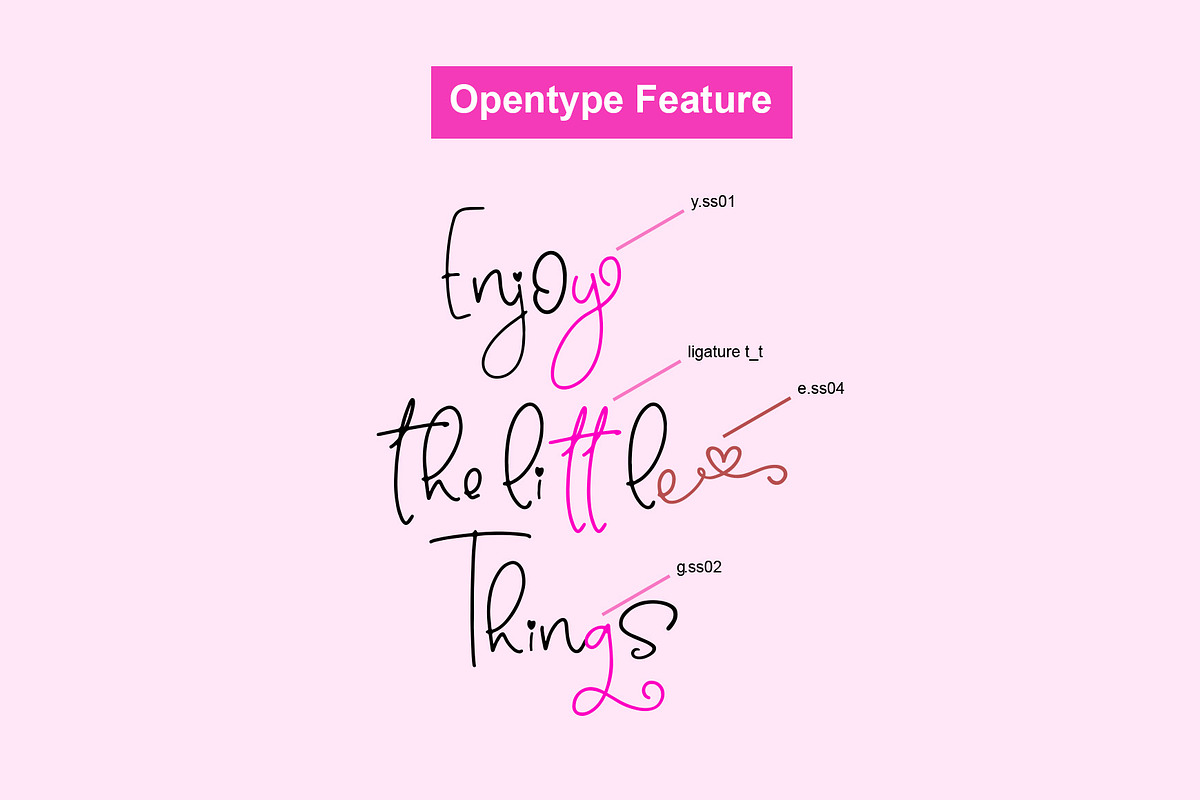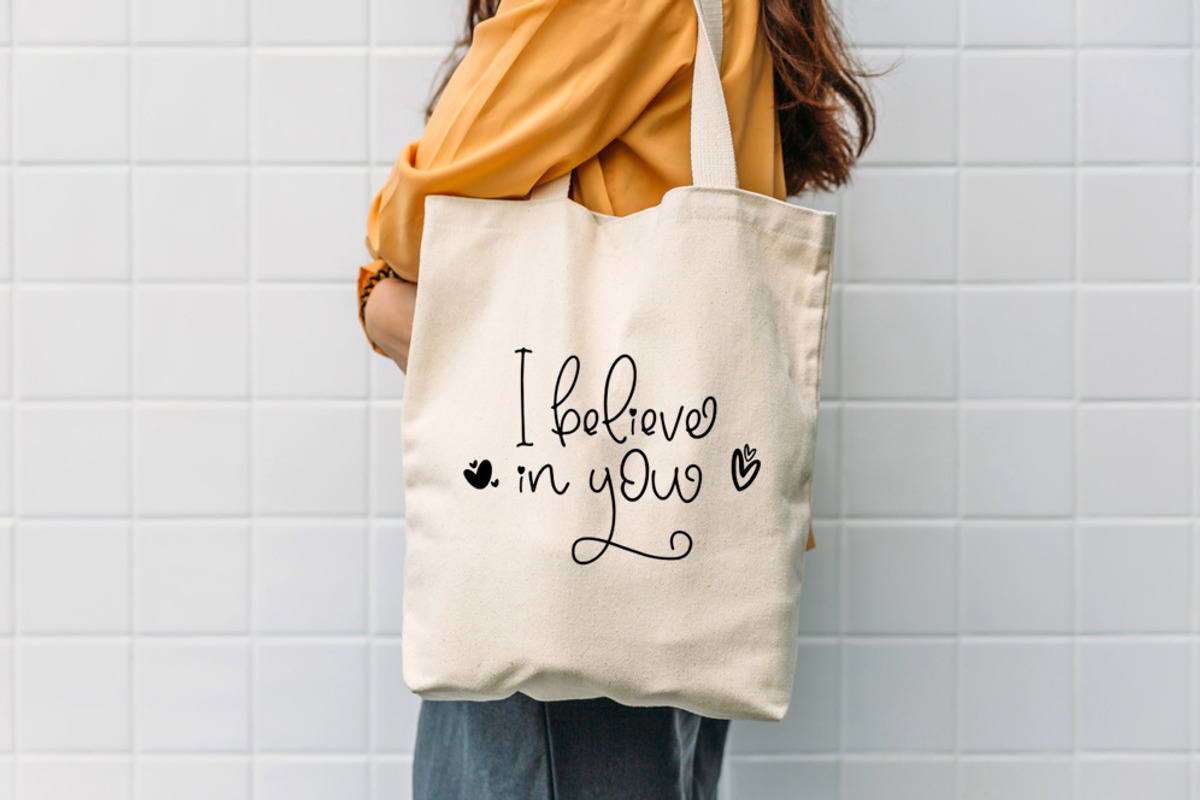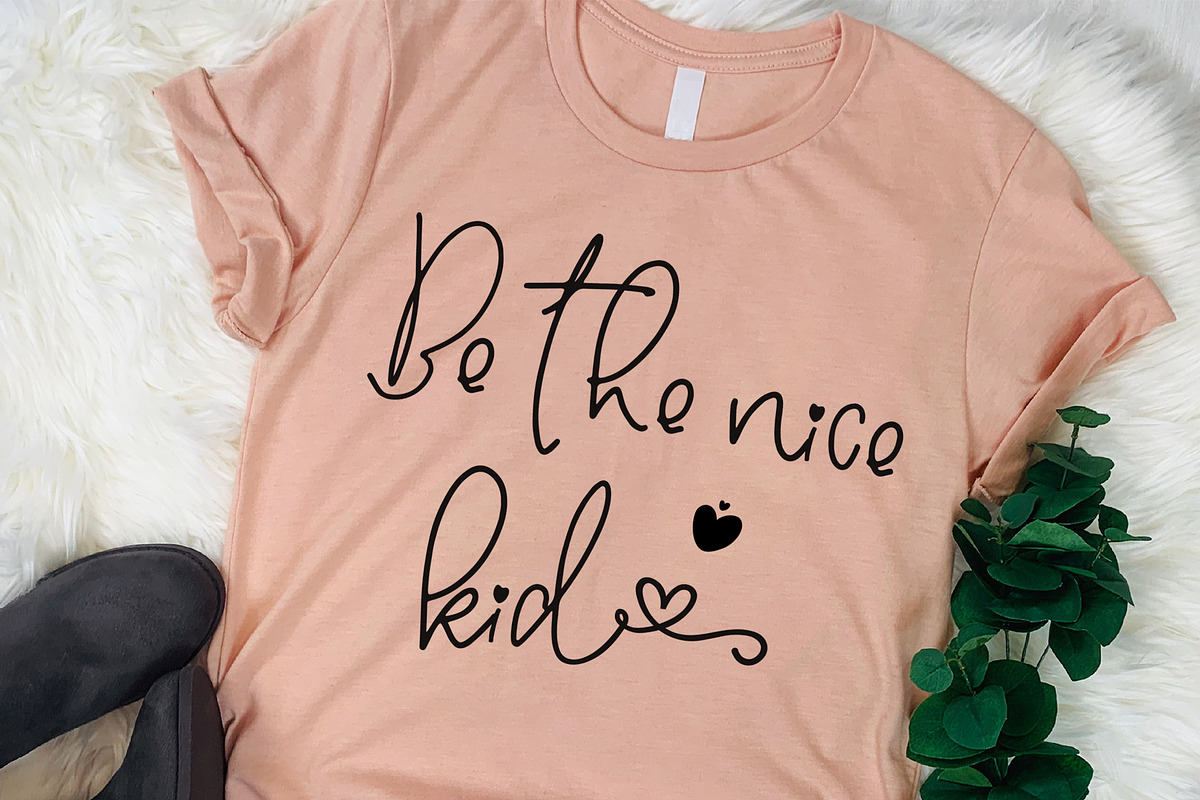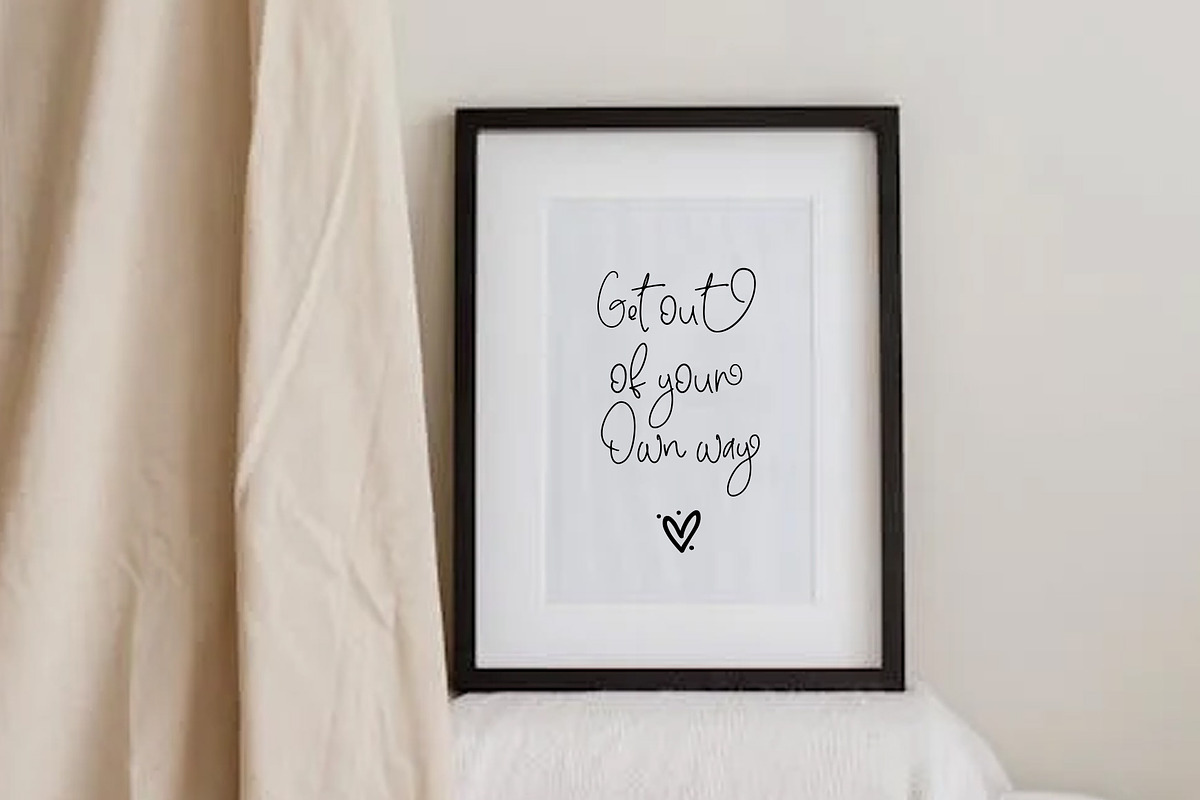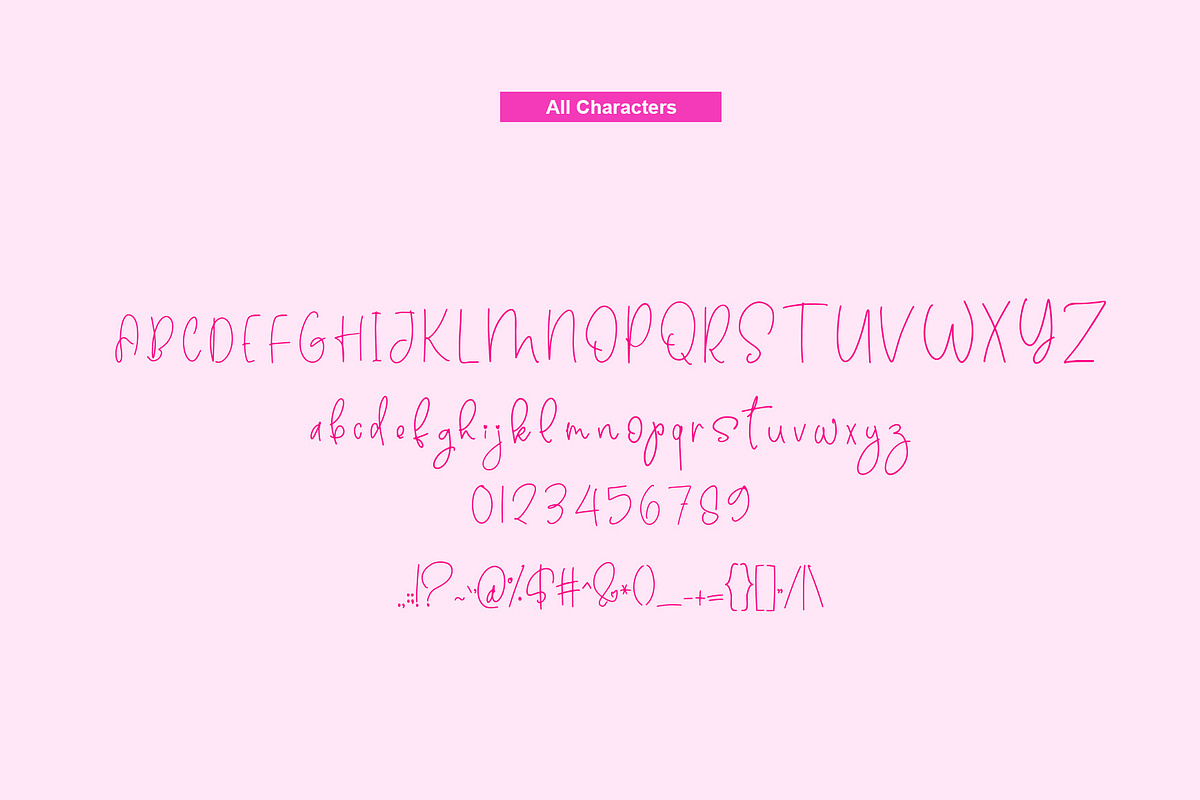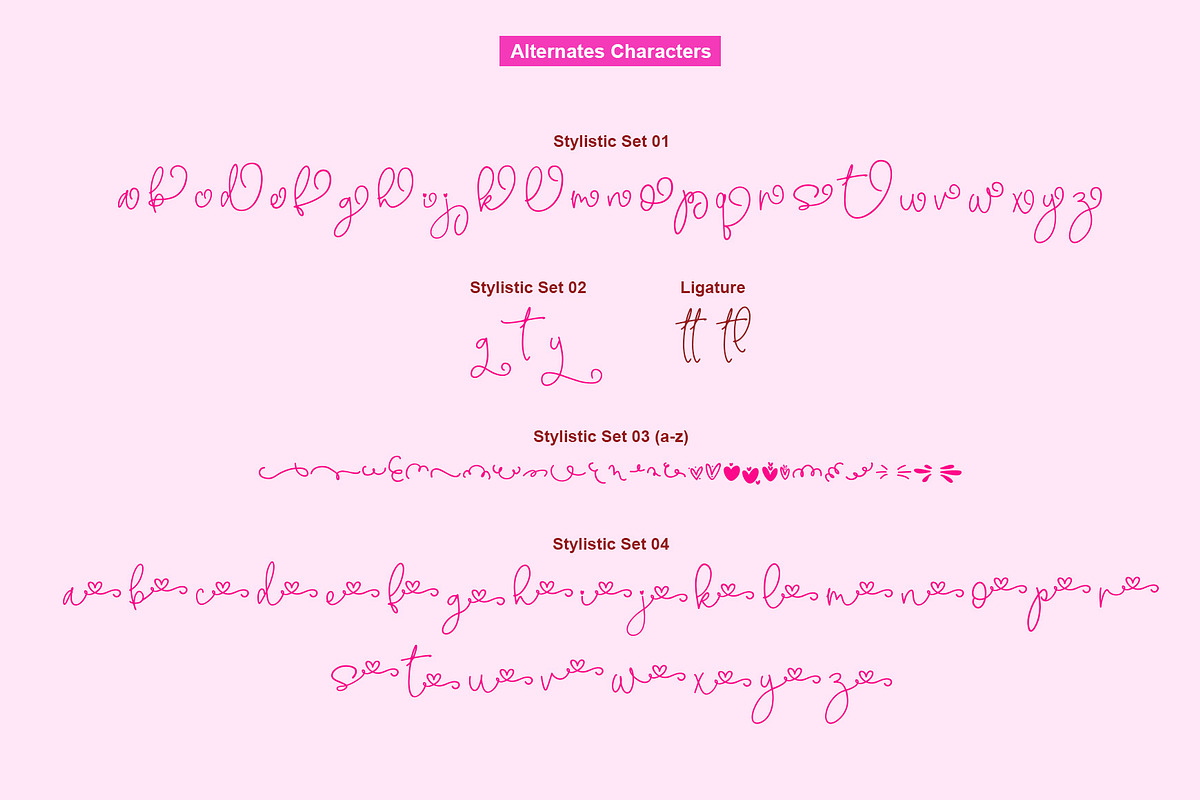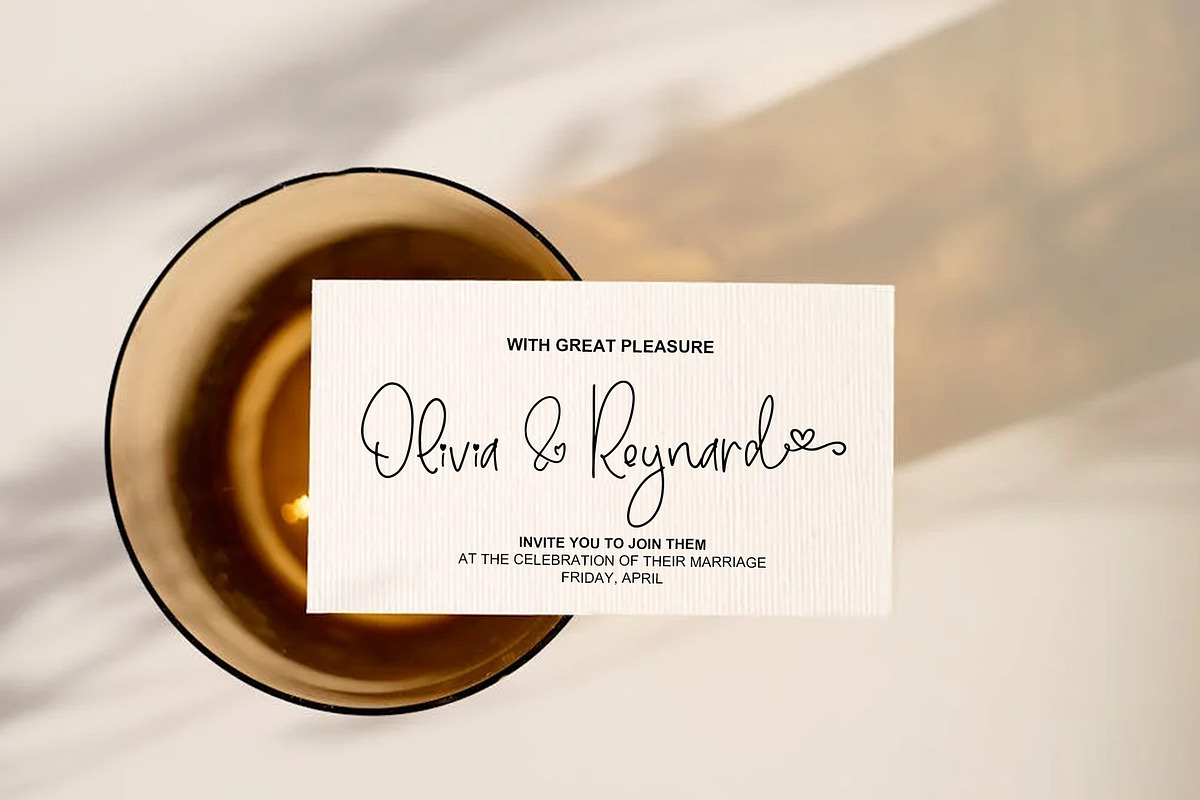
Baby Love Playful Heart font
Baby Love is a playful handwritten font that exudes sweetness and charm. With its playful style and light weight, Baby Love captures the fluidity and elegance of cursive handwriting. Each letter flows seamlessly into the next, creating a sense of rhythm and movement that is both captivating and inviting.
The design of Baby Love resembles the natural strokes of a pen on paper, adding to its handwritten charm and authenticity. In addition, enjoy the features here.
Multilingual Supports
Numerals and Punctuations
Baby Love fits in Clothes, Invitation cards, weddings, social media, quotes, headlines, logos, posters, flyers, branding materials, print media, editorial layouts, and many more designs. Find out more ways to use this font by taking a look at the font preview.
- Stylistic Sets
- Multilingual Supports
- Numerals and Punctuations
Baby Love Playful Heart font by Yuby Creative fits naturally into Branding, posters, packaging, typography.